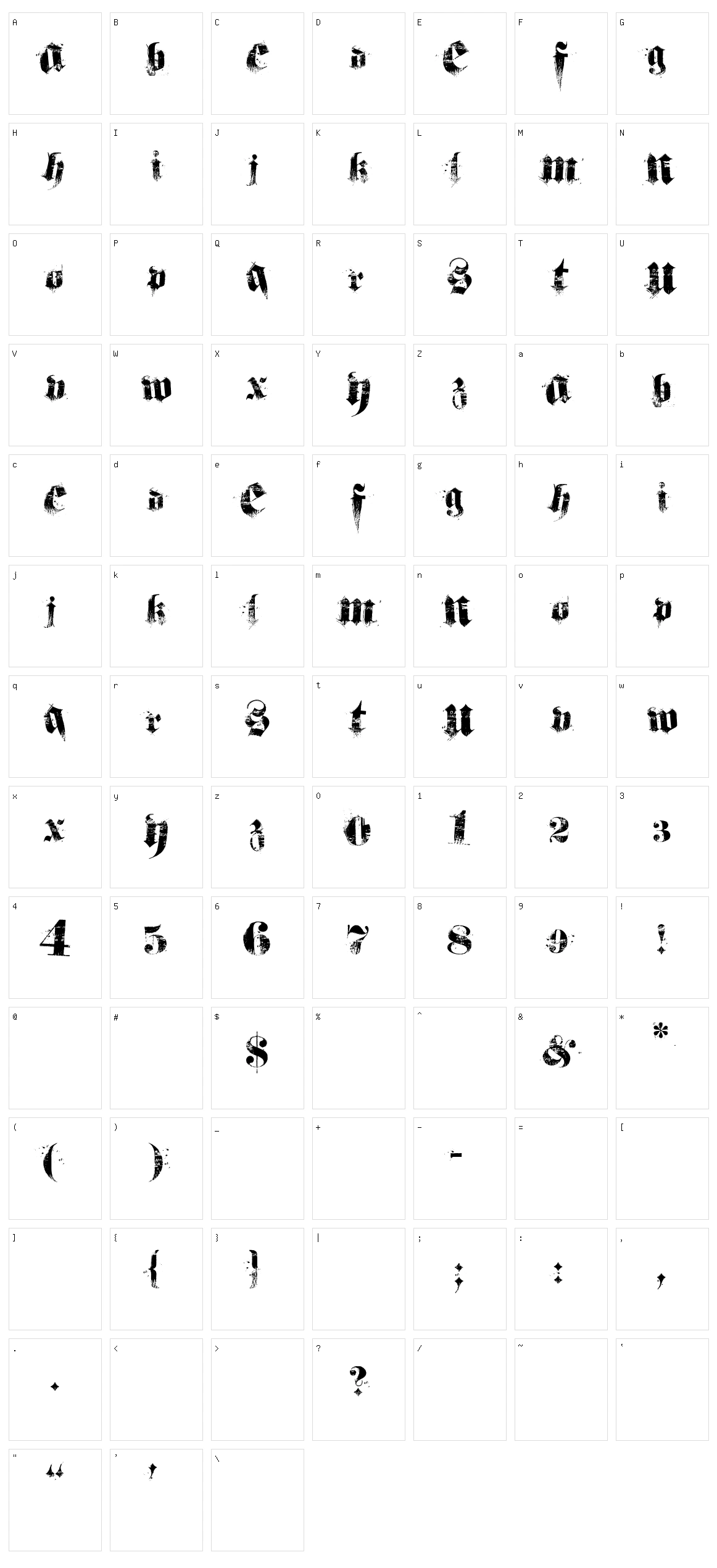
The free font Hardcorium is carefully designed by Segments Design (aka Last Soundtrack), showcasing a thoughtful balance of creativity and usability and belongs to the Gothic font family. When you download the ZIP file, it contains only 222.75 KB of font files, making it lightweight and quick to download. Please review the license details below to understand permitted usage and distribution rights. If license information is not available, we recommend using this font for personal projects only or contacting the author directly for commercial usage permissions.